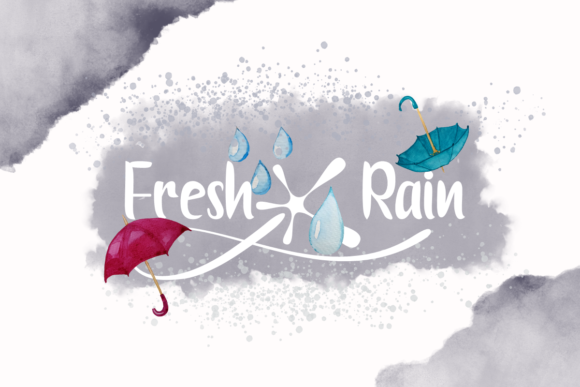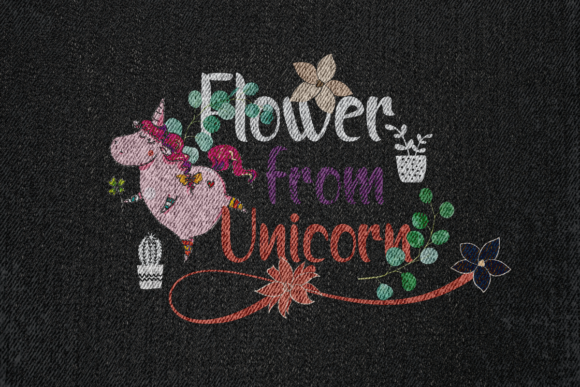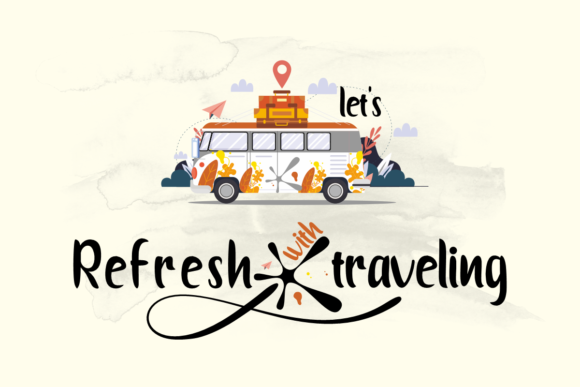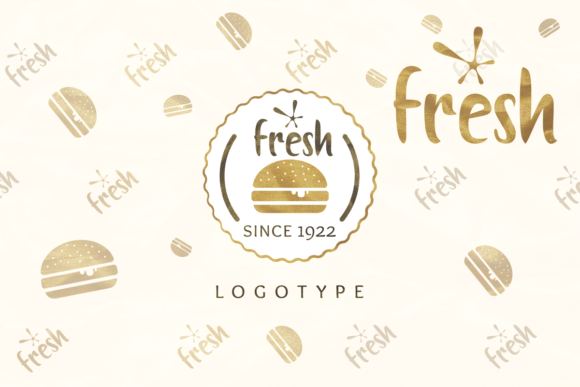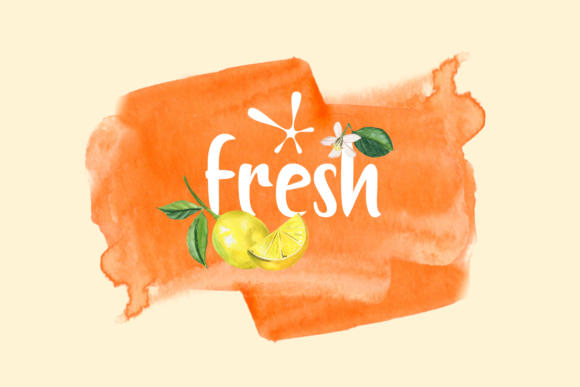
Introduction to Aaron Fresh Font
Aaron Fresh is an elegant and flowing handwritten font.
It features an incredibly classic style, while still keeping a friendly feel Aaron Fresh is the perfect font for making original and outstanding designs.
Aaron Fresh Font offers exceptional quality and versatility, making it a valuable addition to your design toolkit. Whether you’re creating for personal projects or commercial use, Aaron Fresh Font delivers professional results.